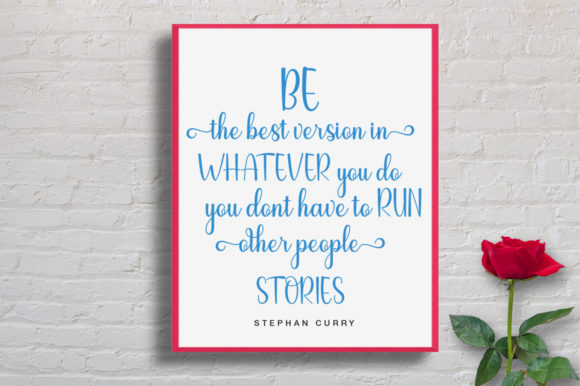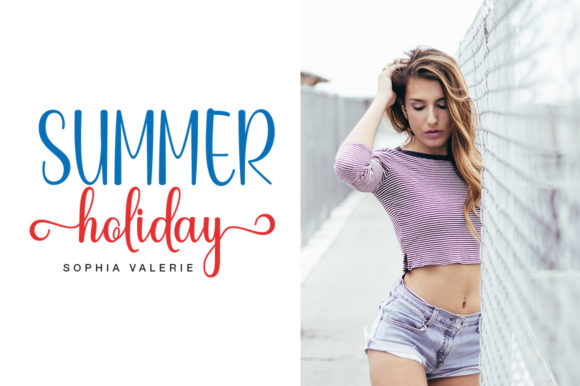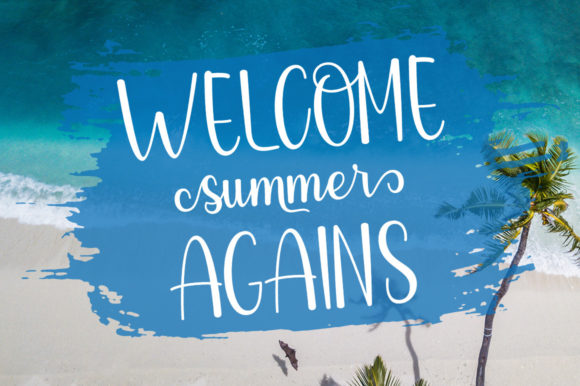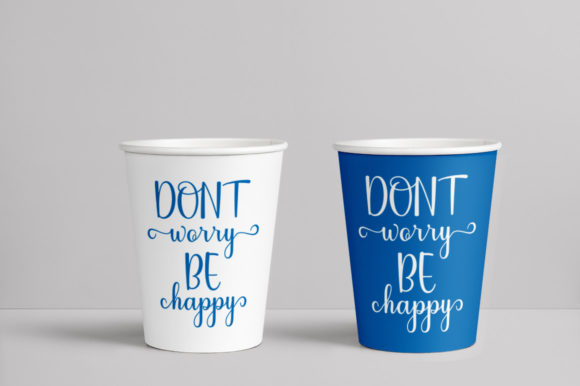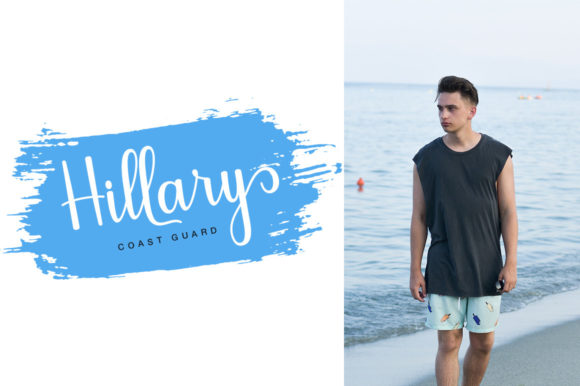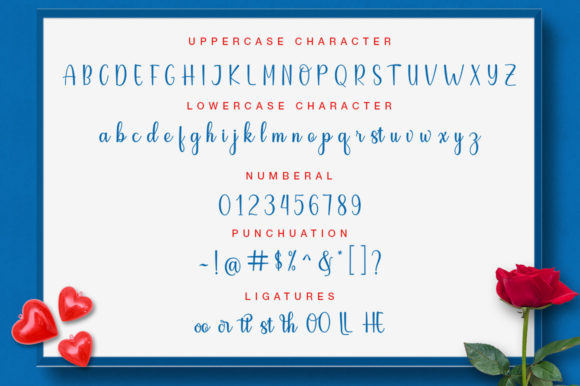
Discover the Elegance of Disforia Inersia Font: Elevate Your Designs with Luxury and Sophistication
In the world of typography, fonts play a crucial role in conveying the tone and aesthetic of a design project. For designers and crafters seeking to add a touch of luxury and sophistication to their creations, the Disforia Inersia Font is an exceptional choice. This beautiful light handwritten font boasts a unique feel and a stunning impact, making it perfect for a wide range of design applications.
What Makes Disforia Inersia Font Stand Out?
Disforia Inersia Font is not just another addition to the vast collection of fonts available today. Its distinctive characteristics set it apart from the rest, making it a valuable asset for designers. Here are some key features that make Disforia Inersia a standout:
- Unique and Elegant Design: Disforia Inersia features a light handwritten style that exudes elegance and sophistication. Its unique feel can instantly elevate the visual appeal of any design project.
- Luxury Spark: This font is designed to add a luxury spark to your designs. Whether you’re working on a branding project, packaging, or marketing materials, Disforia Inersia can help you achieve a high-end look.
Applications of Disforia Inersia Font
The versatility of Disforia Inersia Font makes it suitable for a variety of design projects. Here are some of the areas where this font can make a significant impact:
- Branding and Logos: Create a lasting impression with a unique and elegant logo that incorporates the Disforia Inersia Font.
- Stationery and Packaging: Add a touch of luxury to your stationery, product packaging, and labels with this sophisticated font.
- Web Design: Enhance the user experience with a beautiful and readable font that works well for headings, titles, and short paragraphs.
- Marketing and Advertising: Make your marketing materials stand out with a font that conveys elegance and sophistication.
Tips for Using Disforia Inersia Font Effectively
To get the most out of Disforia Inersia Font, consider the following tips:
- Pair it with Complementary Fonts: Combine Disforia Inersia with other fonts that complement its style to create visual interest and hierarchy in your designs.
- Experiment with Ligatures: Take advantage of the PUA encoding to experiment with different ligatures and glyphs, adding a unique touch to your designs.
- Adjust Font Sizes: Play with different font sizes to create contrast and emphasize key elements in your design.
The Disforia Inersia Font is a valuable addition to any designer’s toolkit. Its unique feel, stunning impact, and luxury spark make it an ideal choice for a wide range of design projects. With its PUA encoding, you can easily access a variety of glyphs and ligatures, allowing you to experiment and create something truly unique. Whether you’re a professional designer or a crafter, Disforia Inersia Font can help you elevate your designs and create something truly special.